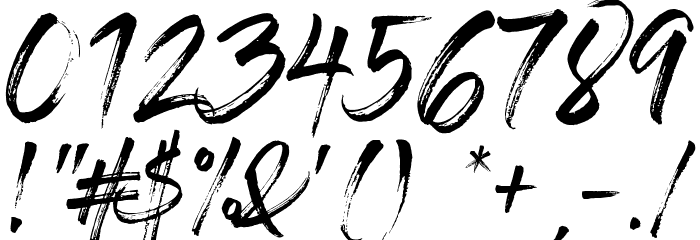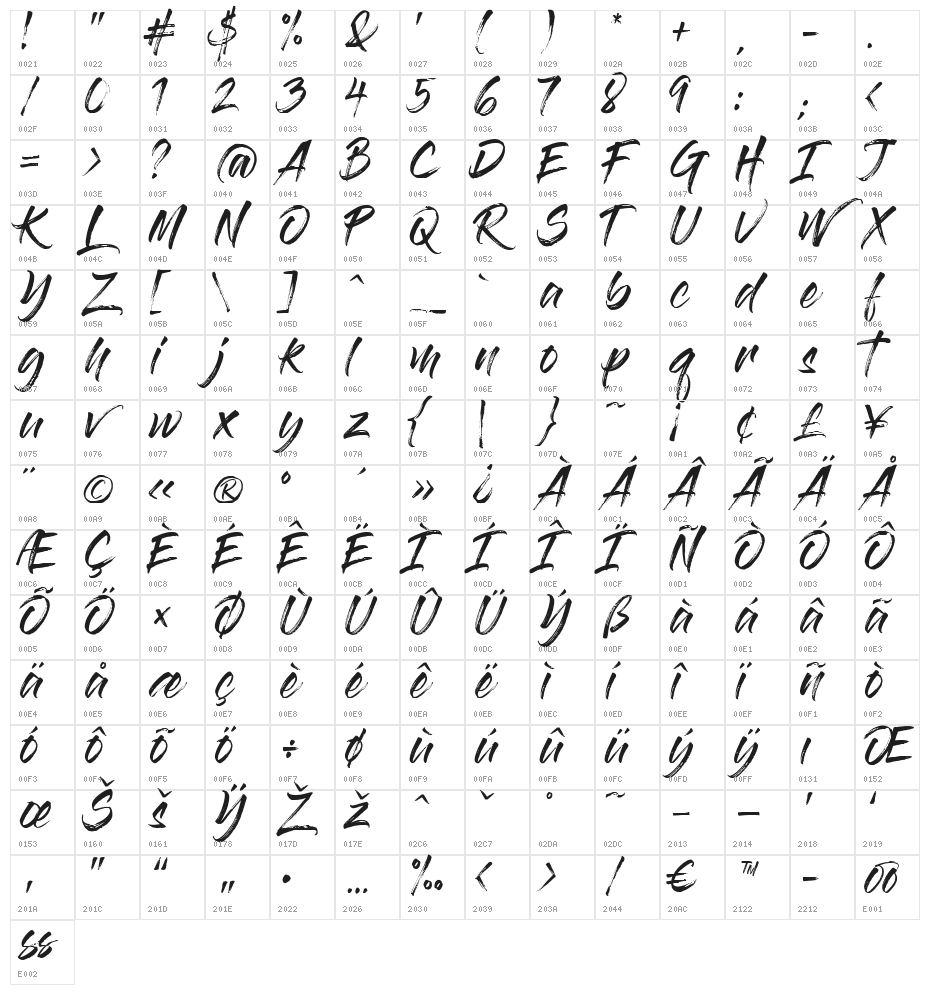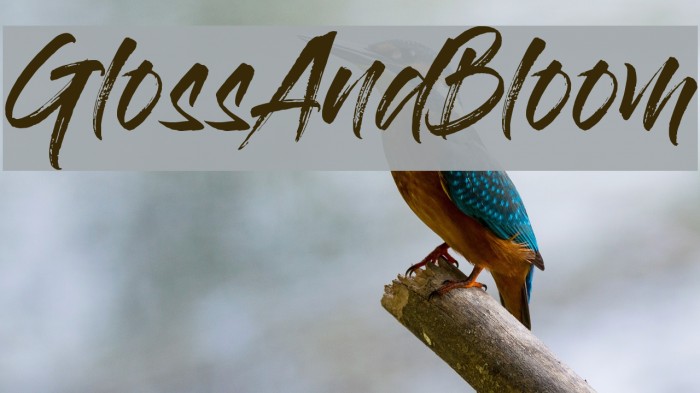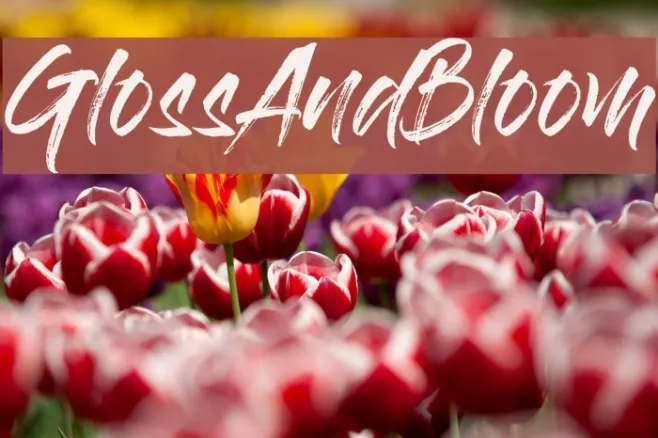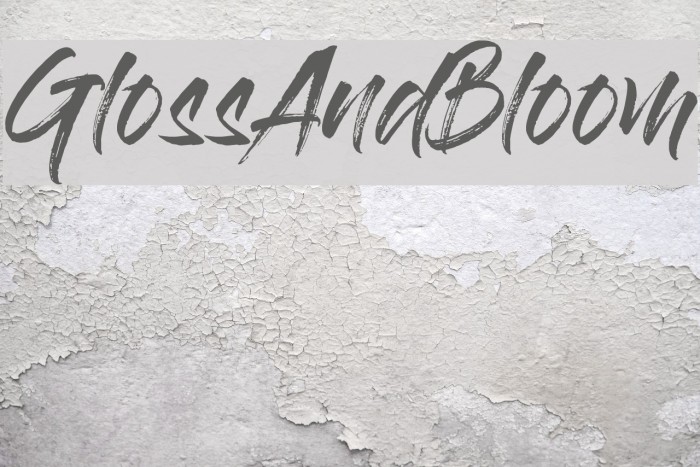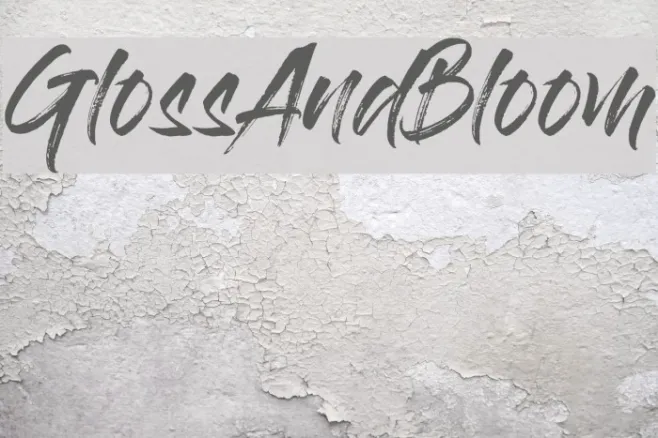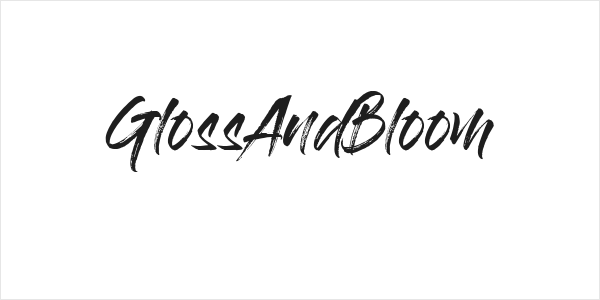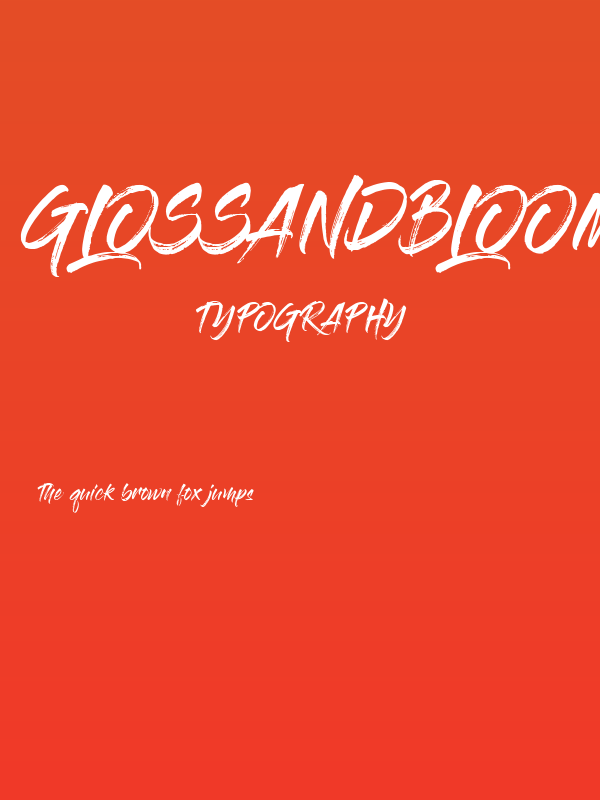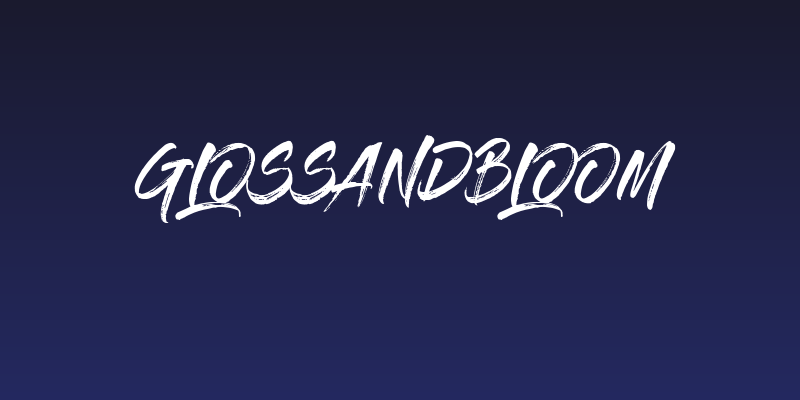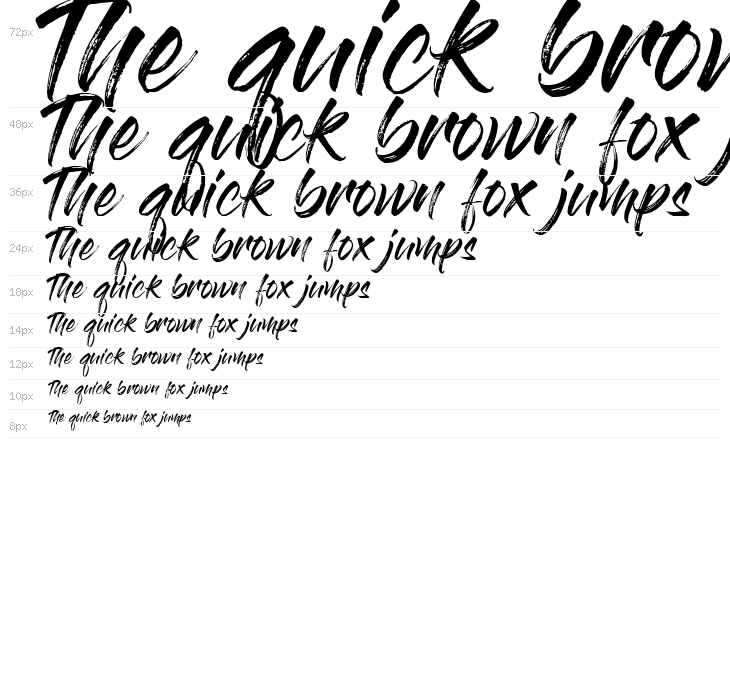
GlossAndBloom Font
GlossAndBloom Description
This expressive and dynamic font features a bold, brush script style with a hand-painted appearance. The strokes are energetic and fluid, giving each character a sense of motion and vitality. The uppercase and lowercase letters are crafted with varying thicknesses, creating a natural and artistic look. The numerals and special characters maintain this lively aesthetic, making them suitable for creative and eye-catching designs. The overall impression is one of spontaneity and creativity, ideal for projects that require a personal and artistic touch.
Proposed ProjectsIdeal for branding, posters, invitations, and any design requiring a personal, artistic touch.